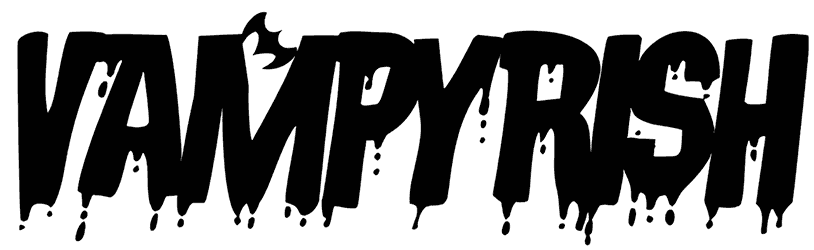
Vampyrish ABC Font
Vampyrish ABC is a blood-dripping font with a grim and bloody mood and a scary face. This horror font will represent a daunting item for movies, books, posters, and many others. Place Vampyrish ABC on your future design, and be sure it will be so unique even without lowercase support.